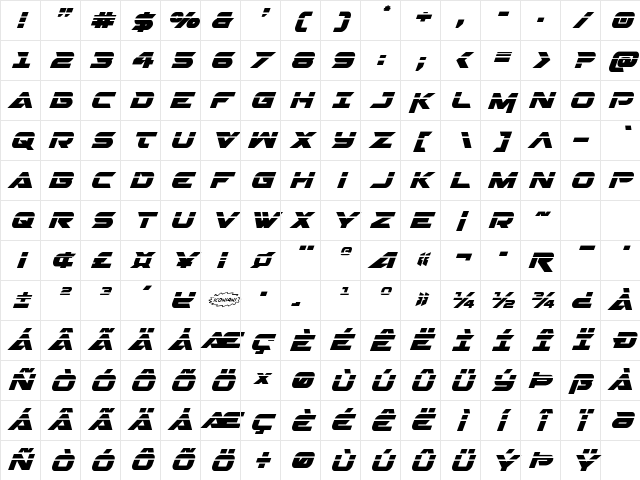
Gemina 2 Laser Italic is a composed and adaptable typeface that performs quietly and consistently across a wide range of design contexts. The slanted form adds forward momentum and visual energy.
Pro Tip: Use Gemina 2 Laser Italic for emphasis, pull quotes, and subheadings where its slanted energy can add rhythm to the layout.